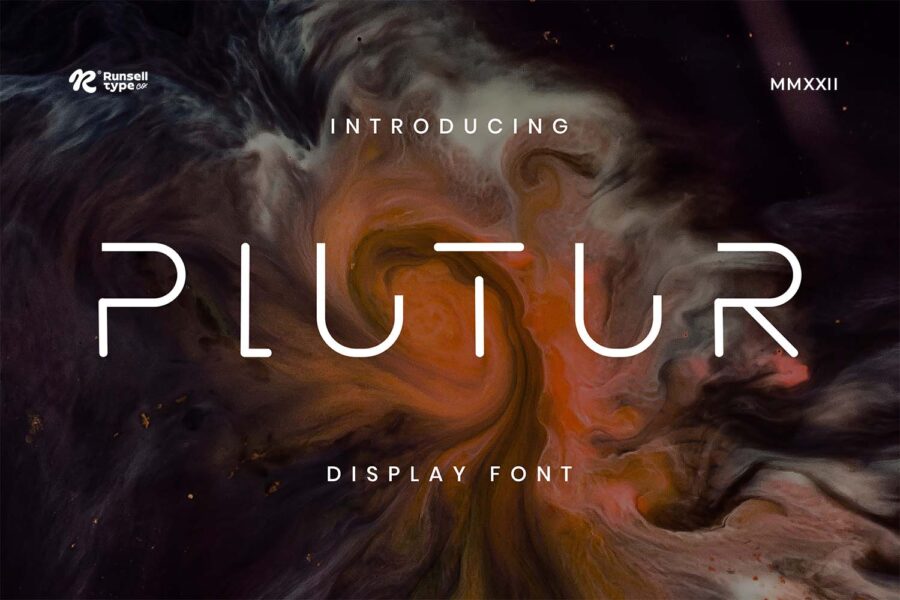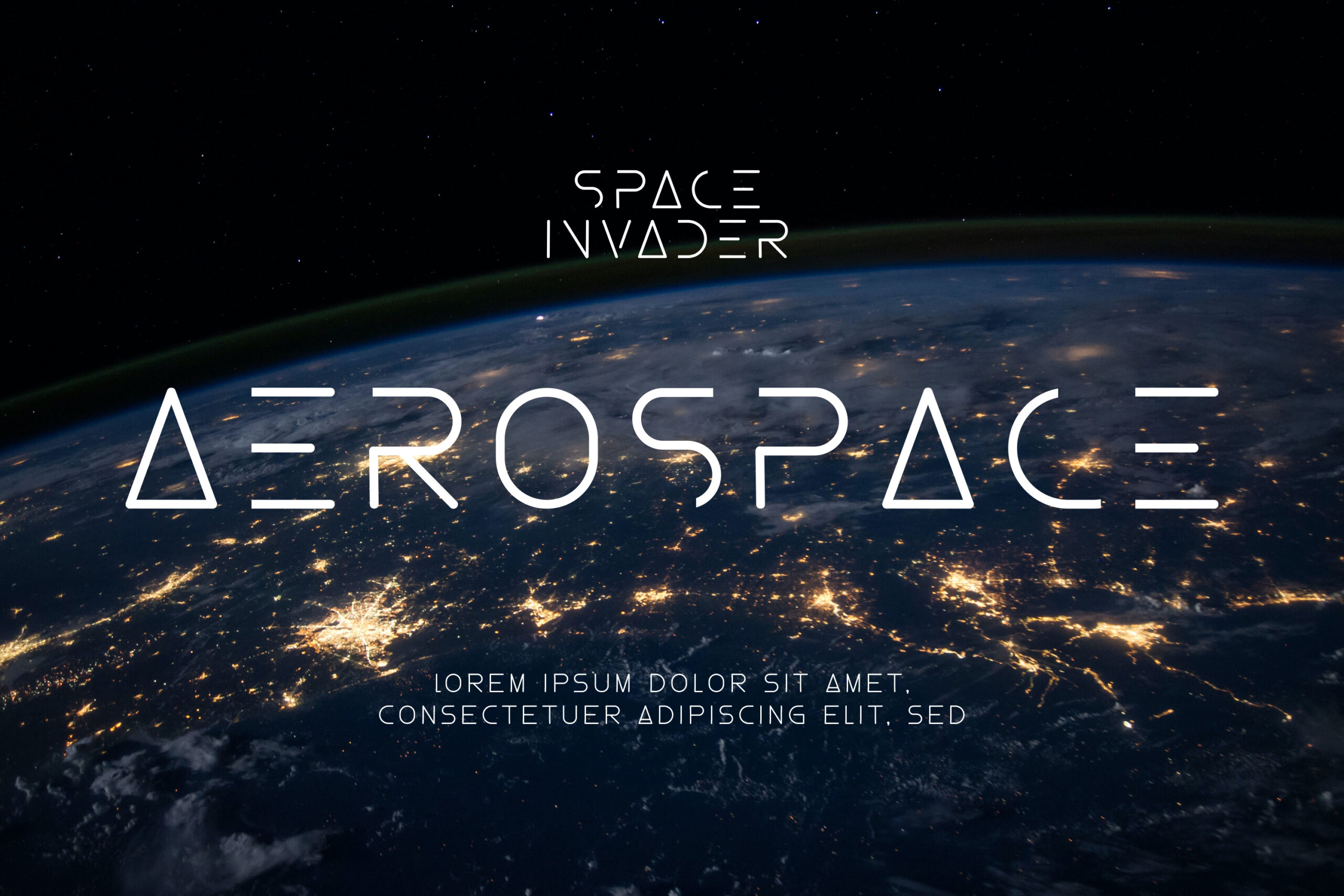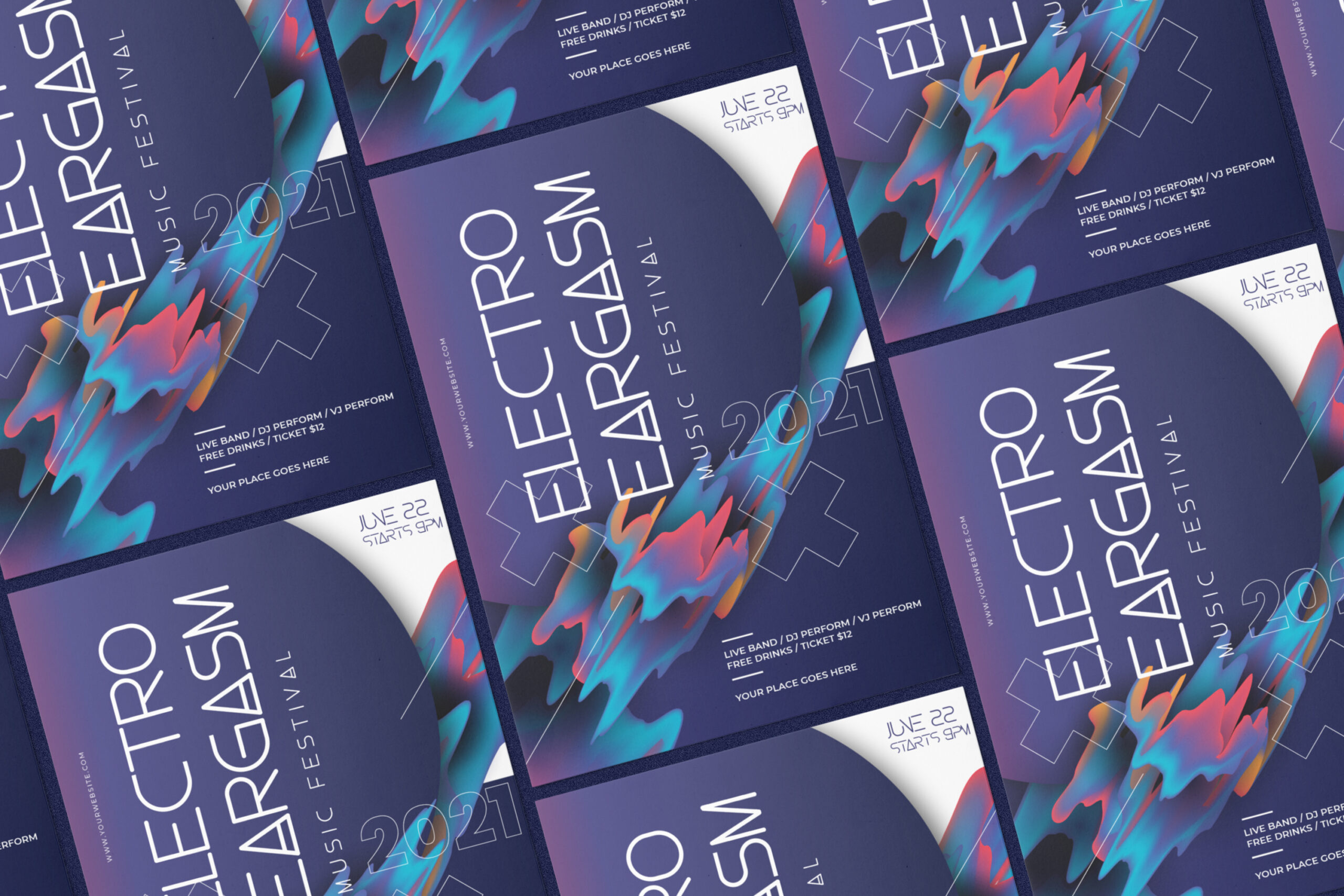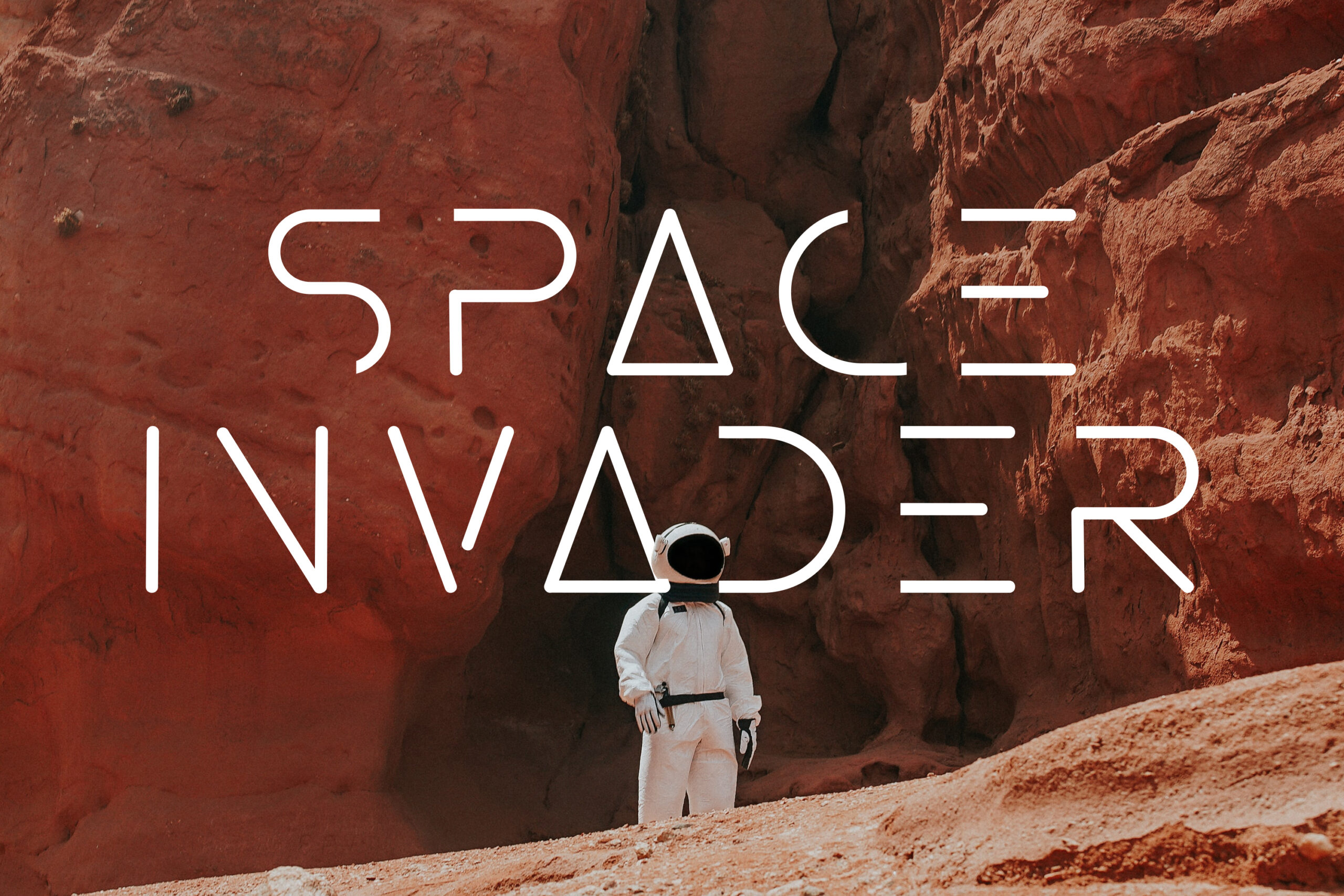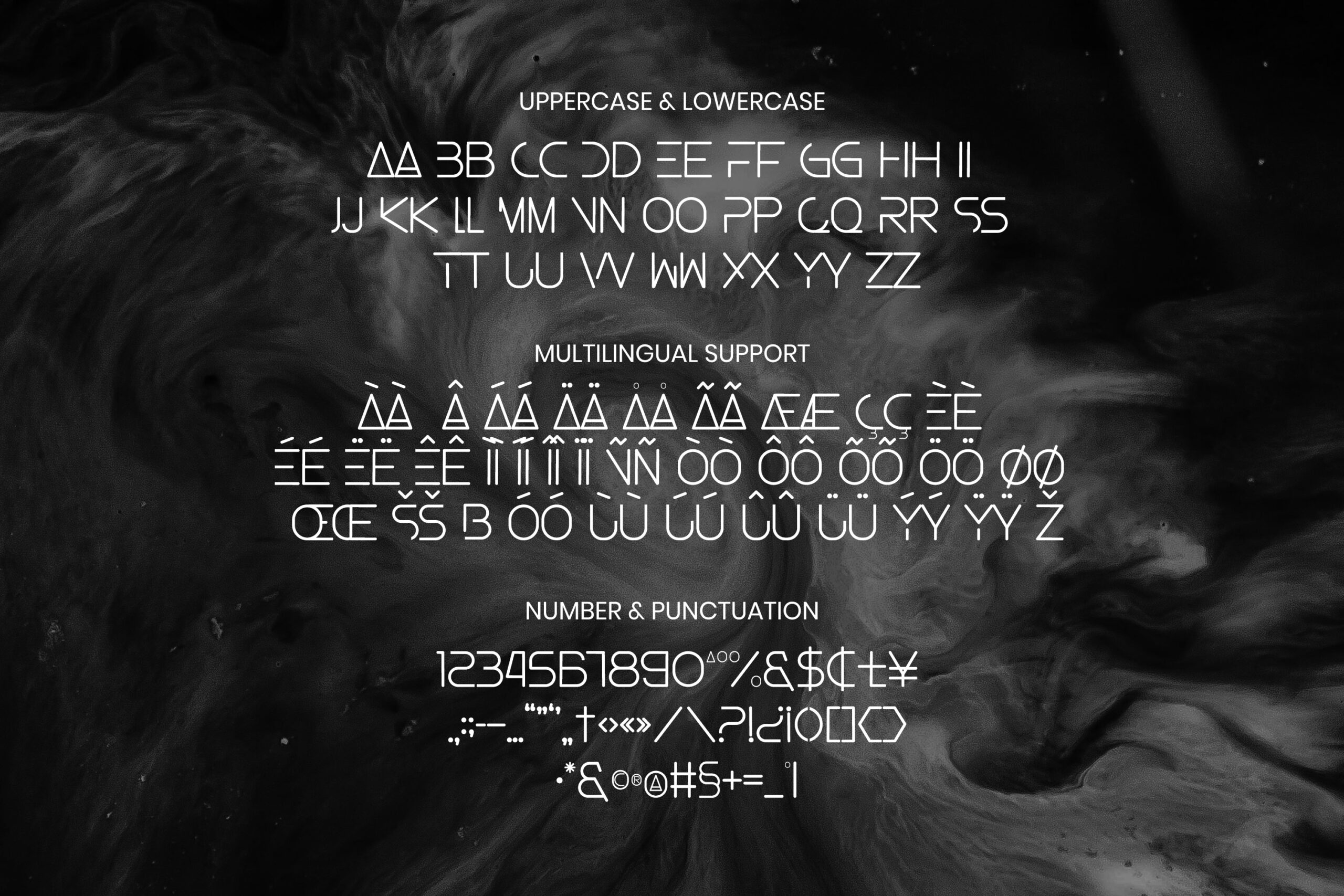
Plutur is a sleek and minimalistic futuristic font designed with precision and elegance in mind. Its geometric structure and rounded edges give it a clean, high-tech appearance perfect for digital interfaces, tech branding, or sci-fi inspired visuals. The distinctive use of line interruptions within characters adds a modernist twist, elevating the aesthetic to feel both experimental and professional.
Crafted for versatility, Plutur includes full uppercase and lowercase sets, multilingual support, and a range of alternate symbols and punctuation. Whether you’re designing an aerospace-themed poster, a cutting-edge music event, or a UI concept for the future, Plutur delivers clarity and visual appeal with a unique identity that stands out in contemporary digital design.